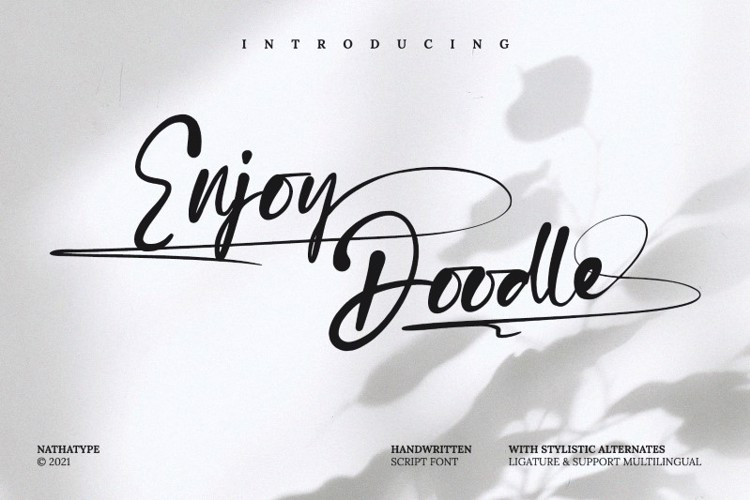
Enjoy Doodle Font
Product Description:
Step into a world of creativity with Enjoy Doodle. Enjoy Doodle is designed to resemble cursive handwriting, evoking a sense of warmth and familiarity. The letters flow gracefully from one to the next, creating a natural and organic rhythm that adds a touch of personality to your text.
Features:
• Ligatures
• Swashes
• Stylistic Sets
• Multilingual Supports
• Numerals and Punctuations